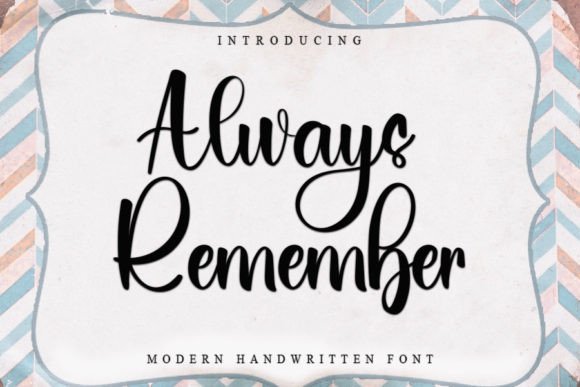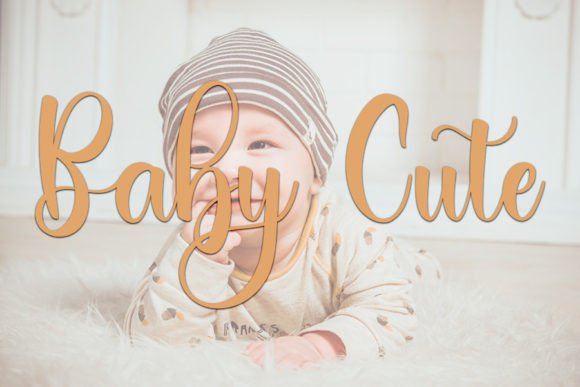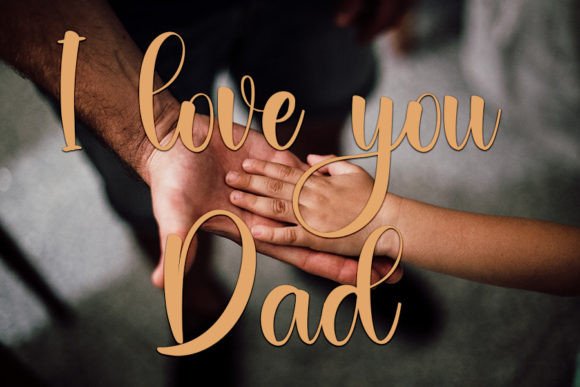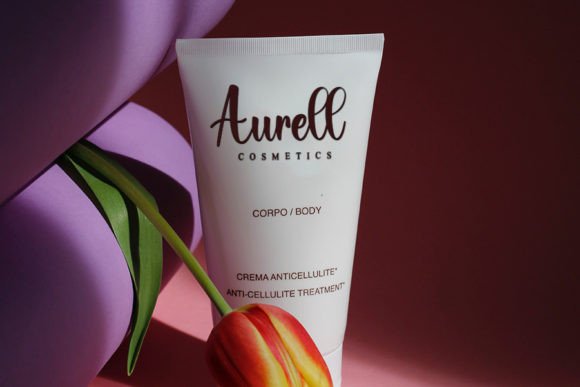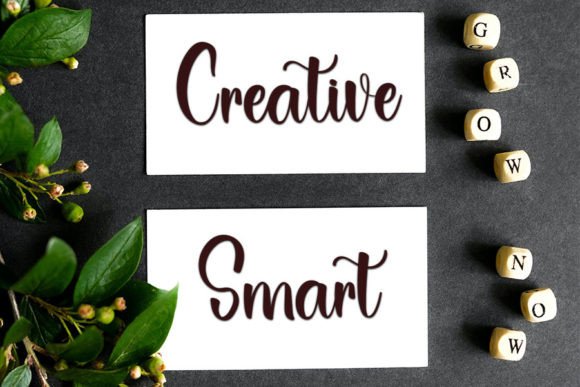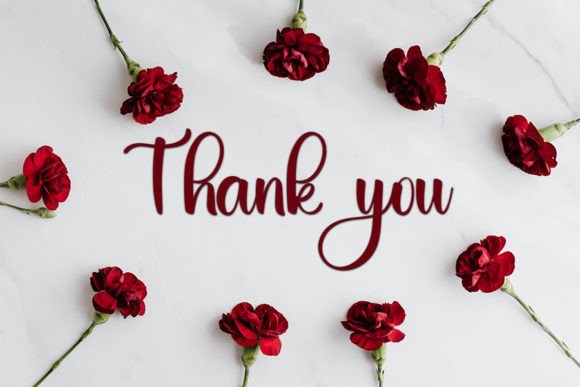
Always Remember Font
About Always Remember Font
Always Remember, a neat and beautiful handwritten font, is characterized by its elegant touch, making it an ideal choice for a variety of creative projects. With its distinct and timeless style, Always Remember adds a touch of sophistication to your designs, allowing you to create truly spectacular visuals.
The charm of Always Remember lies in its neat and carefully crafted design, which exudes an air of elegance. The handwritten touch brings a personal and unique element to your typography, making it suitable for a range of applications across different design contexts.
Consider integrating Always Remember into your favorite projects where a combination of neatness and elegance is desired. Whether you’re working on branding, product packaging, invitations, or any creative endeavor, Always Remember becomes a valuable asset, enhancing the overall aesthetic with its distinctive style.
The adaptability of Always Remember extends to both digital and print materials, making it a versatile choice for various design applications. Whether it’s enhancing the visual appeal of a website, adding flair to social media graphics, or embellishing printed materials, Always Remember brings a touch of timeless beauty.
In essence, Always Remember is more than just a font; it’s a design element that combines neatness and elegance to elevate your projects. Fall in love with its carefully crafted style, and let Always Remember be the choice that adds a touch of sophistication to your spectacular designs. Embrace the distinctiveness of Always Remember and create visuals that stand out with timeless beauty.